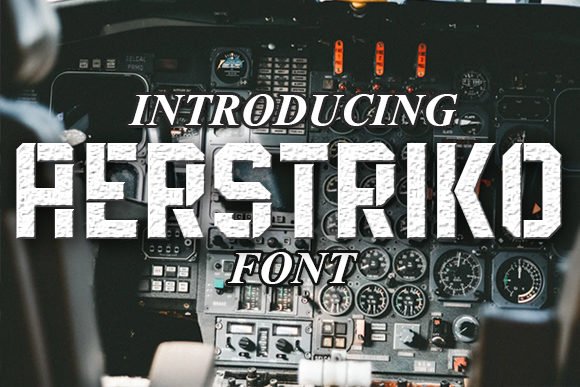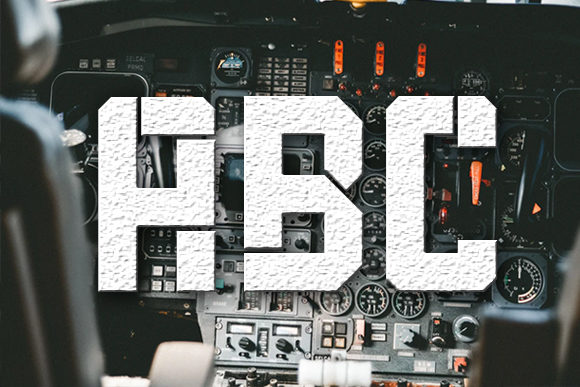
A New Dimension in Typography: Unlocking the Power of Aerstriko Font
Have you ever stared at a blank canvas, desperately searching for the perfect font to bring your design to life? That’s exactly what happened to me last week, when I was working on a project and couldn’t find the right combination of style and legibility. But then, I stumbled upon Aerstriko Font – a game-changing display font that has since become my go-to choice for making a statement.
Aerstriko Font is more than just a pretty face; it’s a powerful tool designed to elevate your designs and grab the attention of your audience. Whether you’re creating eye-catching banners, stunning headlines, or elegant logos, Aerstriko Font is the perfect companion to help you achieve your creative vision.
Aerstriko Font Key Features
- Font Size: The font is designed in 7 weights ranging from Light to Extra Bold, catering to diverse design requirements.
- Unique Characteristics: The font boasts a unique blend of modern and futuristic elements, making it perfect for designing innovative and cutting-edge visual content.
- Font Metrics and Kerning: The font features advanced font metrics and kerning, ensuring precise spacing and alignment for professional-looking typography.
Aerstriko Font Review
Aerstriko Font is an interesting addition to any designer’s toolkit. While it may not be for everyone, I think it has some great qualities that make it worth considering.
- ✨ Unique aesthetic: Aerstriko Font has a distinct style that sets it apart from more common fonts. If you’re looking for something that adds a touch of sophistication and elegance to your designs, this might be the perfect choice.
- ✨ Good for headings: The font is well-suited for headings and titles, where its bold lines and clean design can really shine.
- ✨ Versatile: Aerstriko Font can be used for a variety of projects, from corporate to creative endeavors.
- ⚠️ Limited legibility at small sizes: If you plan to use Aerstriko Font in body text, be aware that it can become difficult to read at small font sizes.
- ⚠️ May not be suitable for all audiences: The font’s unique style may not appeal to everyone, and some users may find it difficult to read or understand.
Aerstriko Font is a great option for designers who want to add some visual interest to their projects. While it has some limitations, its unique aesthetic and versatility make it a worthwhile consideration. Just be mindful of its limitations and use it in contexts where it will shine.
Tips for Getting the Most Out of Aerstriko Font
Use Aerstriko Font to add a touch of sophistication and elegance to your designs.
Pair it with bold, geometric shapes to create a striking visual contrast.
Experiment with different font sizes and styles to create a dynamic and engaging layout.
Aerstriko Font is ideal for:
Corporate branding and identity design.
High-end product packaging and labeling.
Luxury event invitations and promotional materials.